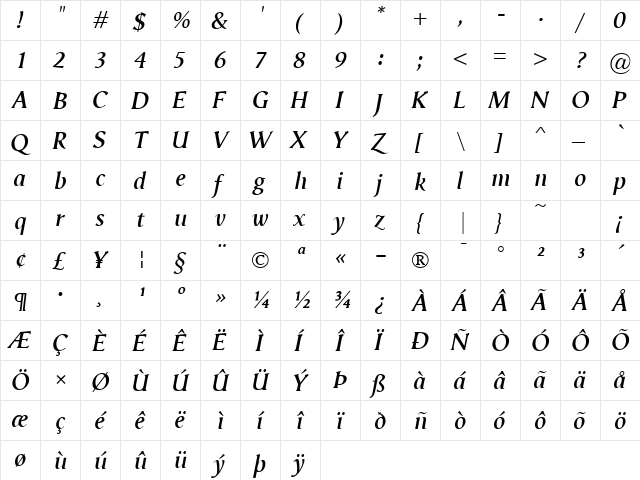
Vega antikva SemiBoldItalic Font Preview
Vega antikva SemiBoldItalic
Vega antikva SemiBoldItalic Font Details
| Style | SemiBoldItalic |
Design Context for Vega antikva Typeface
Vega antikva is a composed and adaptable typeface that performs quietly and consistently across a wide range of design contexts. Its italic angle brings a sense of urgency and motion to the letterforms. Its bold stroke weight gives it real presence on the page.
Pro Tip: Try Vega antikva for annotation and caption copy alongside an upright companion — the contrast in angle creates a dynamic but ordered typographic system.